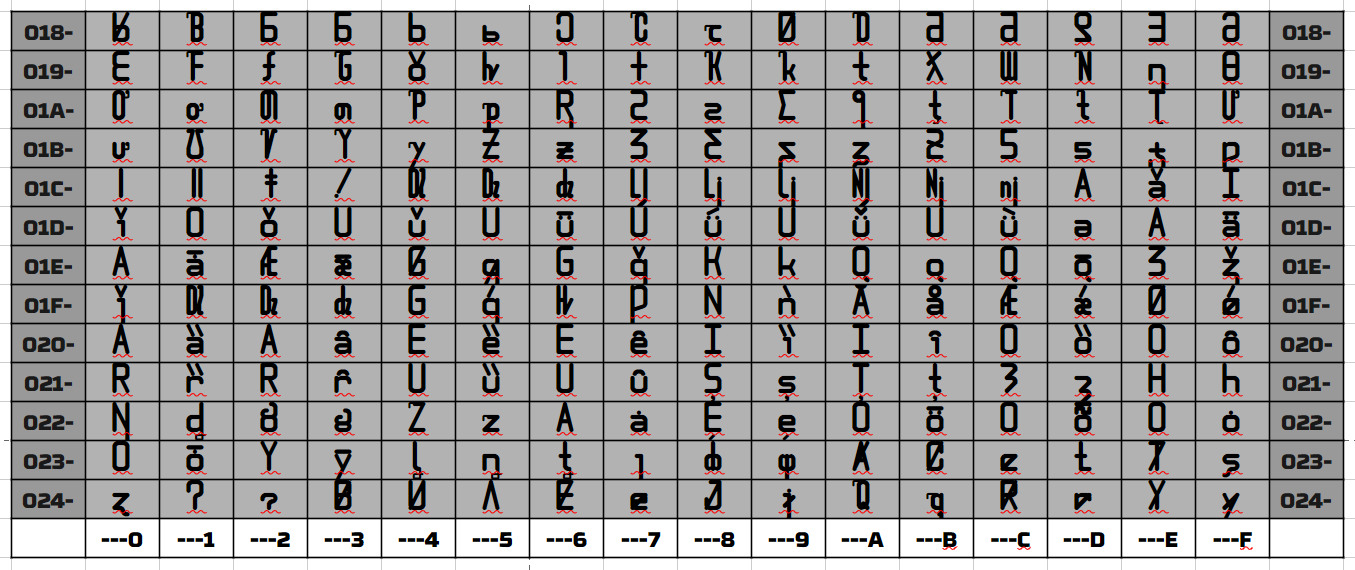
this is how digitalio-2 would've continued his font "roundificateivly"
added control pictures
moved uppercase LL ligature to PUA
Did you move kwak to the Private Use Area?
i overwrote it
btw, i added segmented display on PUA
wait a moment since when did i have more than 1150 chars
finished latin extended B